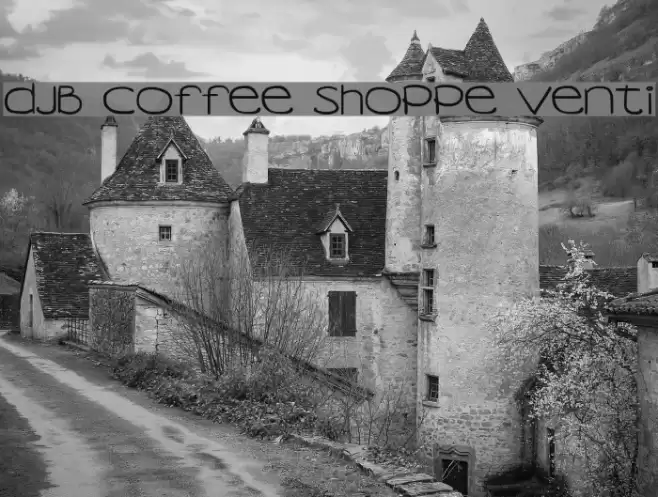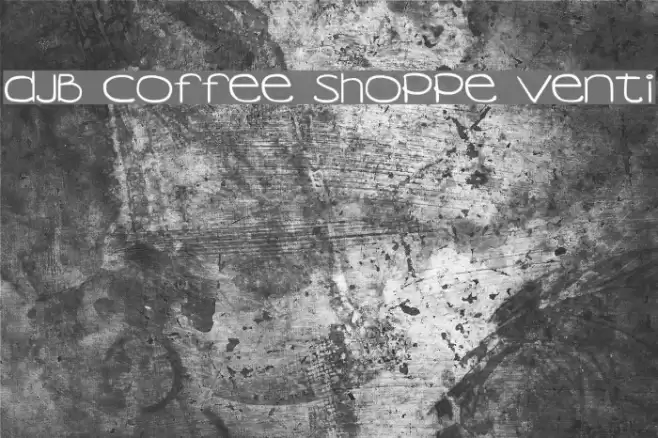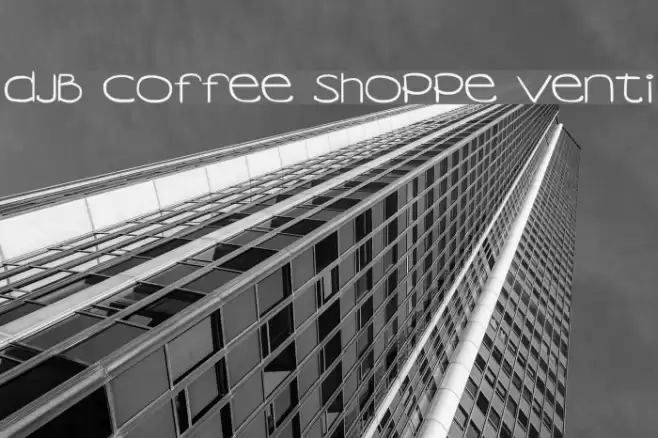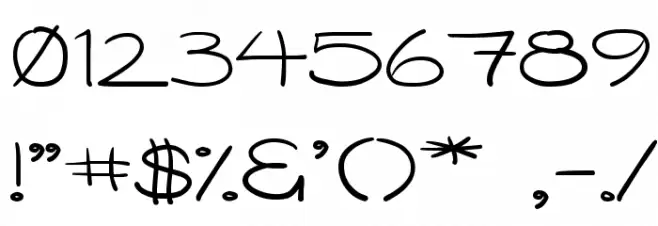
DJB Coffee Shoppe Venti Font
DJB Coffee Shoppe Venti Description
This font features a playful and casual style with rounded edges and a handwritten feel. The characters are slightly elongated, giving them a unique and friendly appearance. The strokes are consistent in width, contributing to a clean and approachable look. The font includes both uppercase and lowercase letters, numbers, and a variety of special characters. Its informal style makes it suitable for projects that aim to convey warmth and approachability.
A playful, handwritten-style font with rounded edges and consistent stroke width from Uncategorized fonts.
- Proposed Projects: Ideal for cafe menus, children's books, greeting cards, and casual branding projects.
- Overall Style: Casual
- Use Case: Headlines, Logos, Informal text